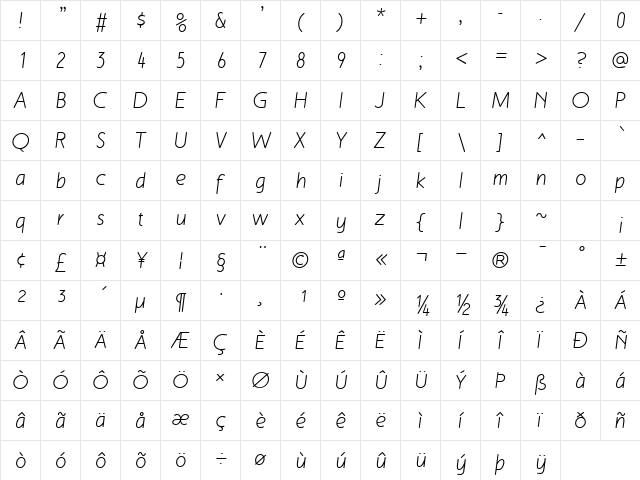
Malvern LF Italic
Design Context for Malvern LF Typeface
Malvern LF is a composed and adaptable typeface that performs quietly and consistently across a wide range of design contexts. The dynamic lean of this cut emphasises speed and emphasis in any layout.
Pro Tip: Try Malvern LF for annotation and caption copy alongside an upright companion — the contrast in angle creates a dynamic but ordered typographic system.